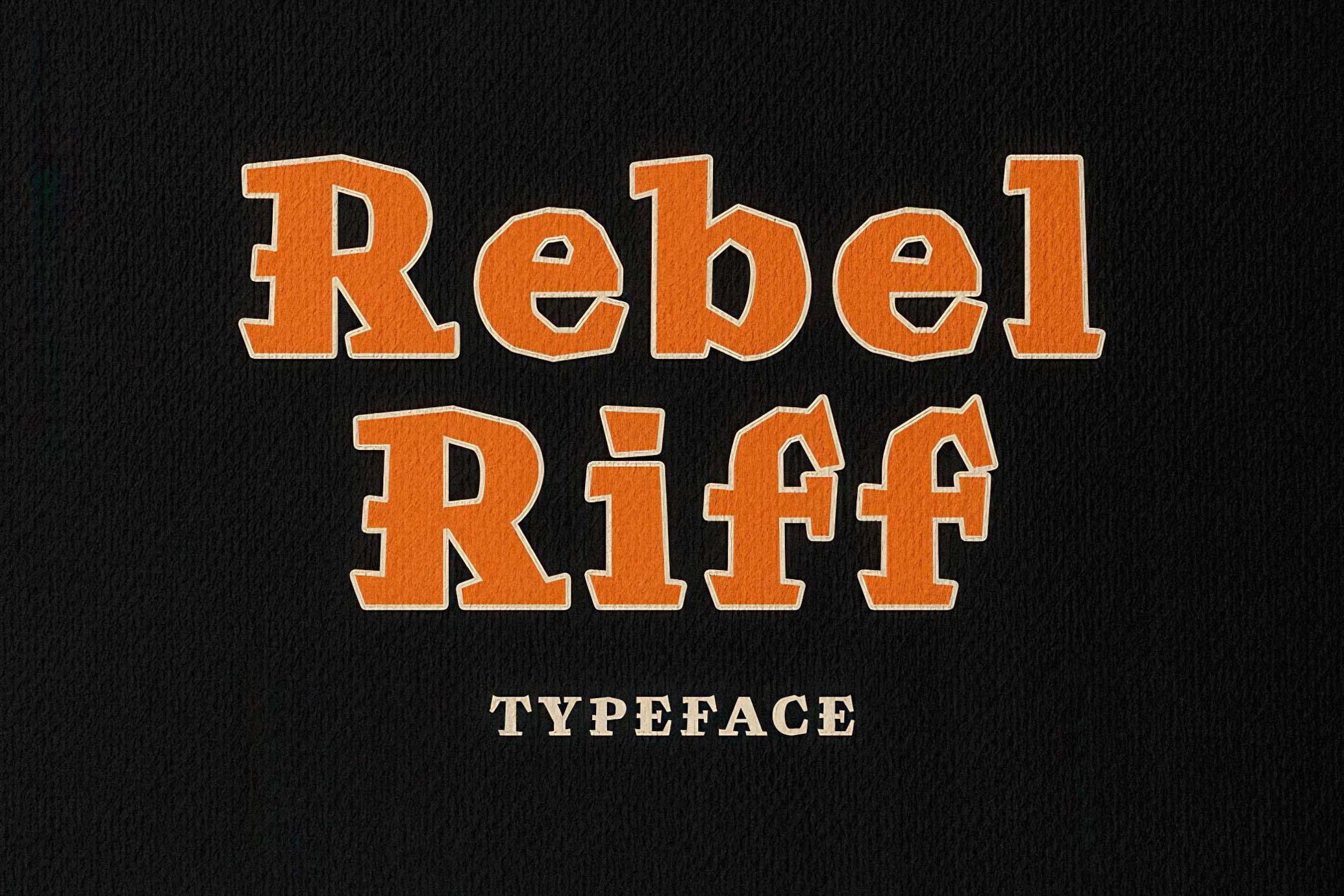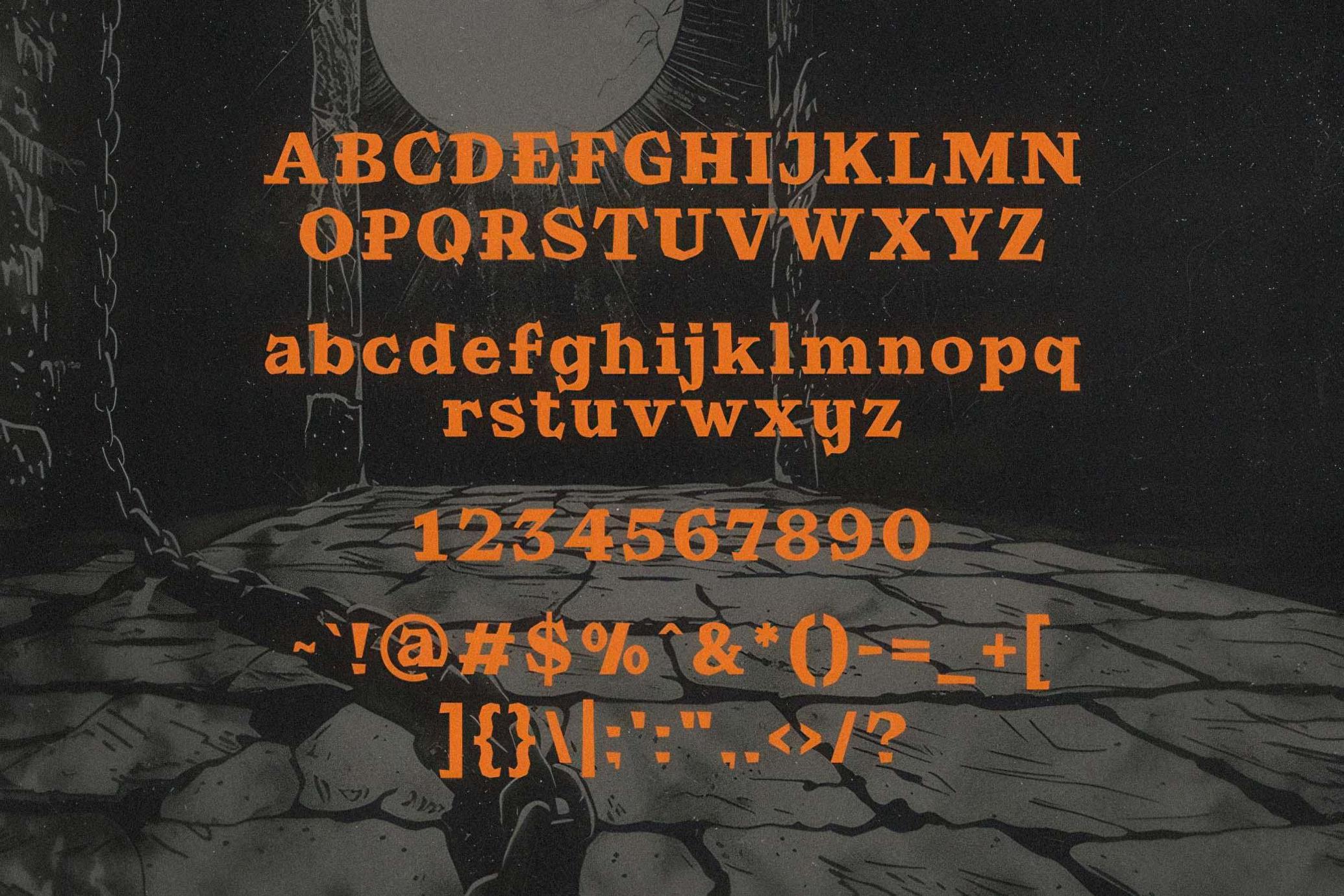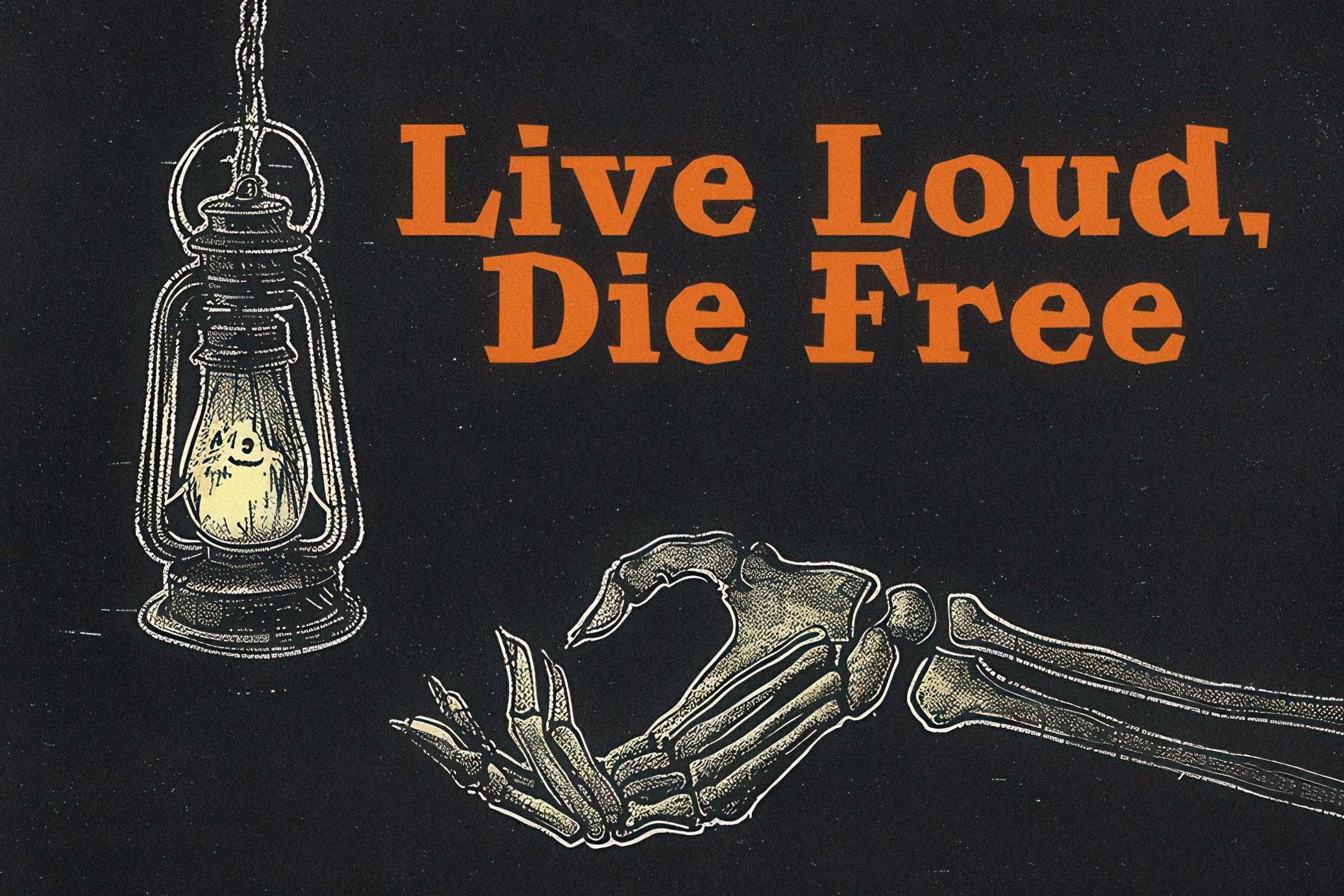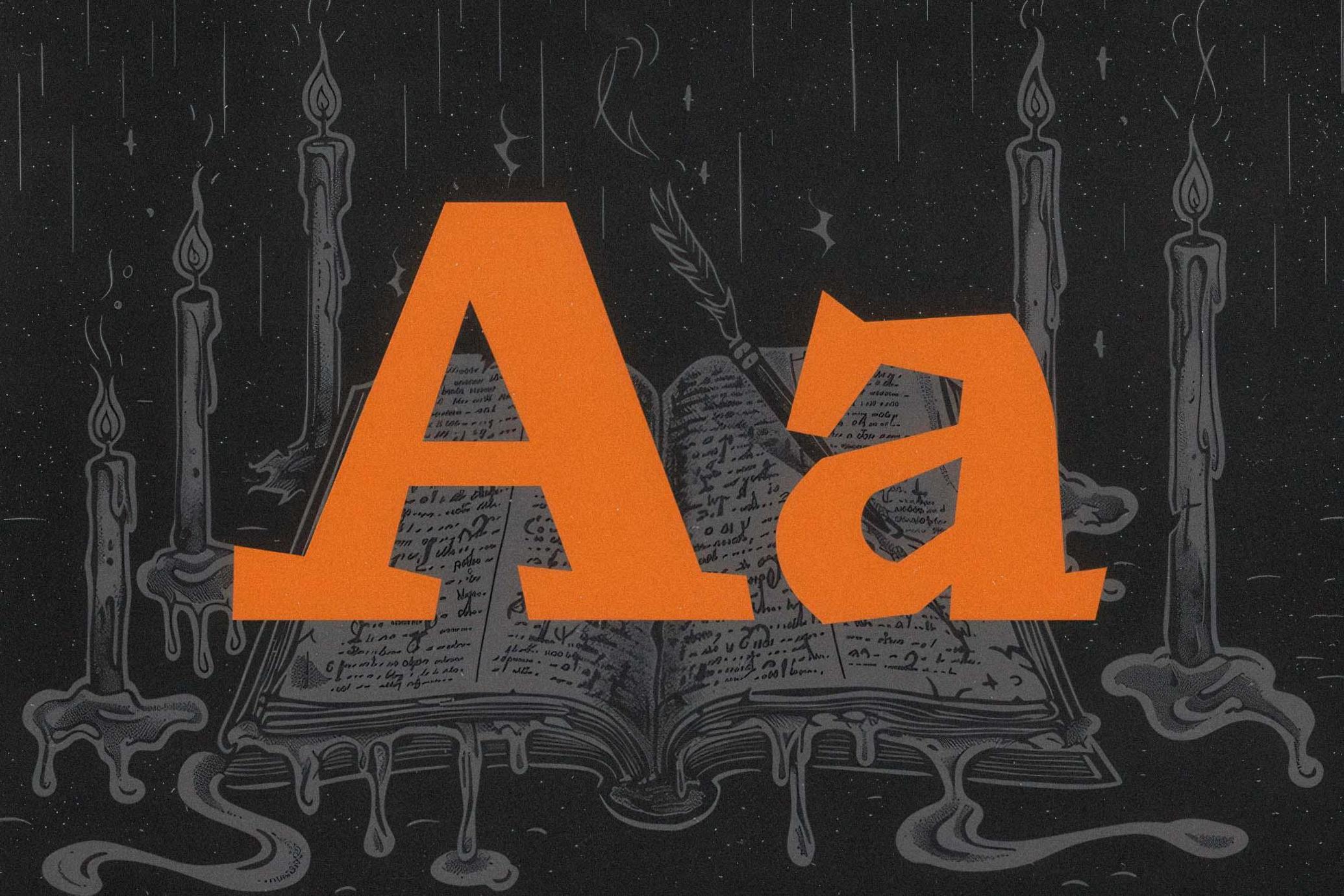
Rebel Riff - Edgy Typeface
Introducing Rebel Riff, a bold and defiant typeface that dares to break all the rules. With its rough edges and raw energy, this font is perfect for those who march to the beat of their own drum. Designed for projects that demand attention, Rebel Riff exudes attitude and individuality, making it ideal for album covers, posters, streetwear, and anything that calls for an untamed aesthetic. Let your designs scream with the power of rebellion and make a statement that can’t be ignored.